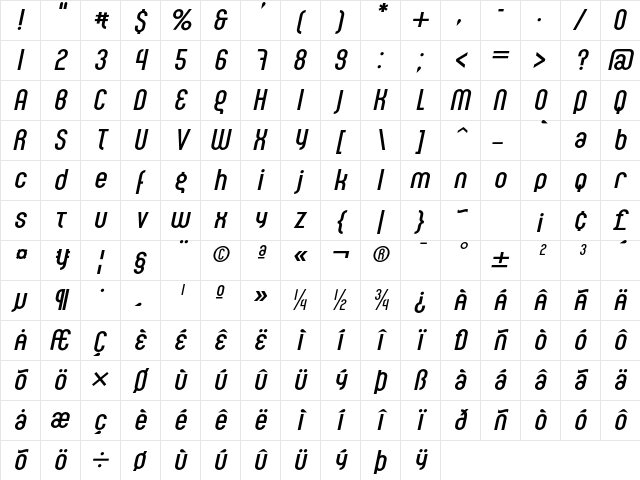
Phobos Regular
Foundry: Linotype Library GmbH
Designer: Silvan Kaeser
Design Context for Phobos
Phobos is a composed and adaptable typeface that performs quietly and consistently across a wide range of design contexts.